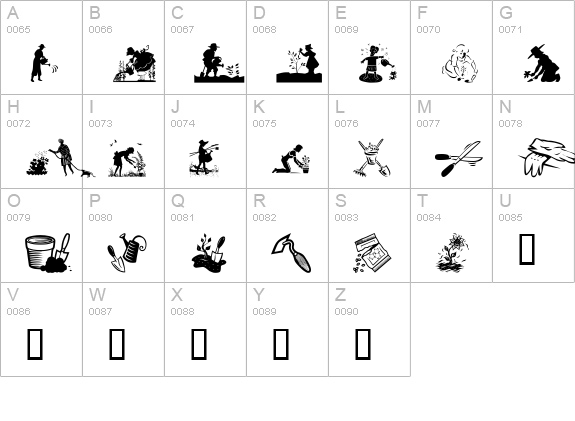
Gardening With Sue font is a charming and whimsical typeface perfect for adding a touch of nature to your designs. With its delicate strokes and organic feel, this font brings to mind a beautiful garden in full bloom. Whether you're working on invitations, posters, or branding materials, Gardening With Sue font will add a fresh and natural element to your projects. And the best part? Gardening With Sue font is completely free to download at FontsMarket.com. Simply head over to the website and start using this lovely font in your designs today. Let Gardening With Sue font inspire you to create beautiful and nature-inspired creations that will surely stand out.